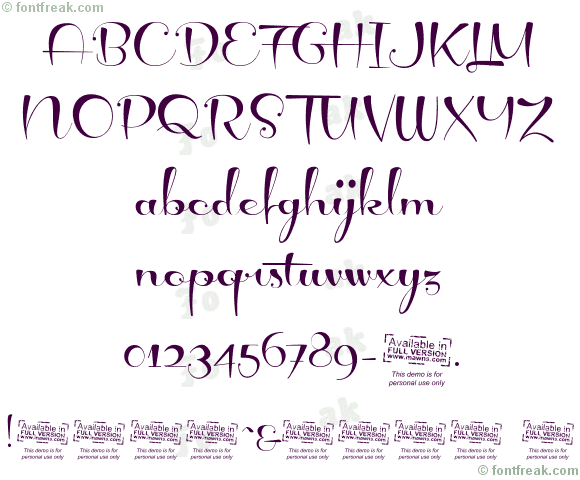
LeviteeDemo
LeviteeDemo — Character Map
About LeviteeDemo
LeviteeDemo by Mans Greback is a captivating script font that exudes elegance and charm. This freeware typeface combines fluid, cursive lettering with a playful touch, making it ideal for a wide range of creative projects. The font features a moderate stroke weight with subtle variations that add a dynamic quality to each letterform. The smooth curves and gentle swashes present in the design create a sense of movement, drawing attention while maintaining readability. The spacing is thoughtfully arranged to provide a balanced appearance, making it suitable for both large titles and smaller text settings.
The LeviteeDemo font is particularly well-suited for wedding invitations, where its romantic style can enhance the overall aesthetic. It also shines in branding for boutique shops, adding a personalized touch to logos and product packaging. Restaurant menus can benefit from its inviting appearance, capturing the essence of a warm dining experience. Additionally, this font is perfect for social media graphics, giving content creators a stylish way to engage their audience.
Targeted at graphic designers, small business owners, and content creators, LeviteeDemo offers versatility that can elevate various design projects. Its unique characteristics make it a standout choice for those looking to add a distinctive flair to their work.
In conclusion, the LeviteeDemo font free download presents an excellent opportunity for designers seeking a script typeface that balances elegance and playfulness. Its visual appeal and adaptability to various contexts set it apart from more conventional fonts, making it a must-have addition to any designer's toolkit. Whether for formal events or casual branding, LeviteeDemo is sure to leave a lasting impression.